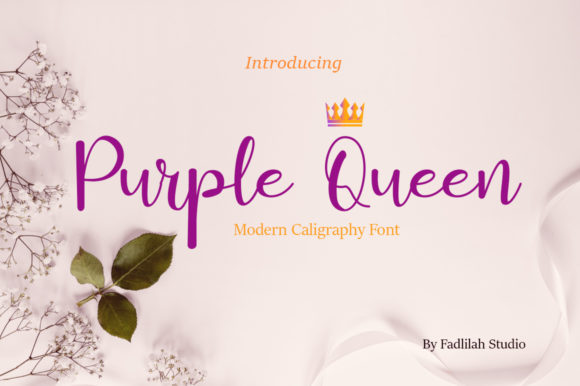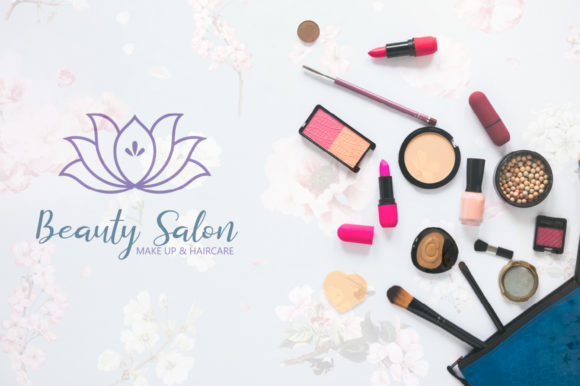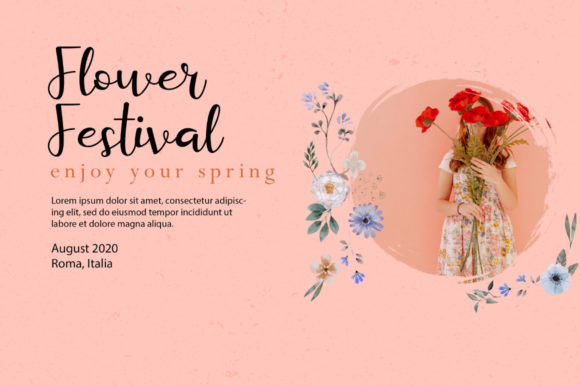
About Purple Queen Font
Introducing “Purple Queen,” a sweet and lovely handwritten font that exudes charm and beauty. With its versatile and captivating style, “Purple Queen” is the perfect choice for a wide range of design projects. From enchanting wedding invitations to beautiful stationary art and eye-catching social media posts, this font will infuse your creations with an irresistible allure.
“Purple Queen” boasts a delightful and endearing handwritten charm that adds a touch of warmth and authenticity to every design. Each letter is carefully crafted with love, showcasing the font’s artistic finesse and attention to detail.
Imagine using “Purple Queen” to create enchanting and romantic wedding invitations that leave a lasting impression on your guests.
In stationary art, “Purple Queen” becomes a symbol of creativity and beauty, transforming ordinary paper into works of art.
For eye-catching social media posts, “Purple Queen” brings a touch of playfulness and charm, captivating your audience and sparking their interest.
With its versatility and sweet appeal, “Purple Queen” becomes an invaluable asset for all your creative endeavors.
In conclusion, “Purple Queen” is more than just a font; it’s a celebration of love and beauty. With its sweet and lovely style, “Purple Queen” becomes an essential companion for all your design projects. Fall in love with the captivating allure of “Purple Queen” and watch as your creations come alive with enchantment and grace. Let your imagination bloom in the sweet and lovely embrace of “Purple Queen,” the handwritten font that defines romance and elevates your designs to new heights of loveliness and artistry.